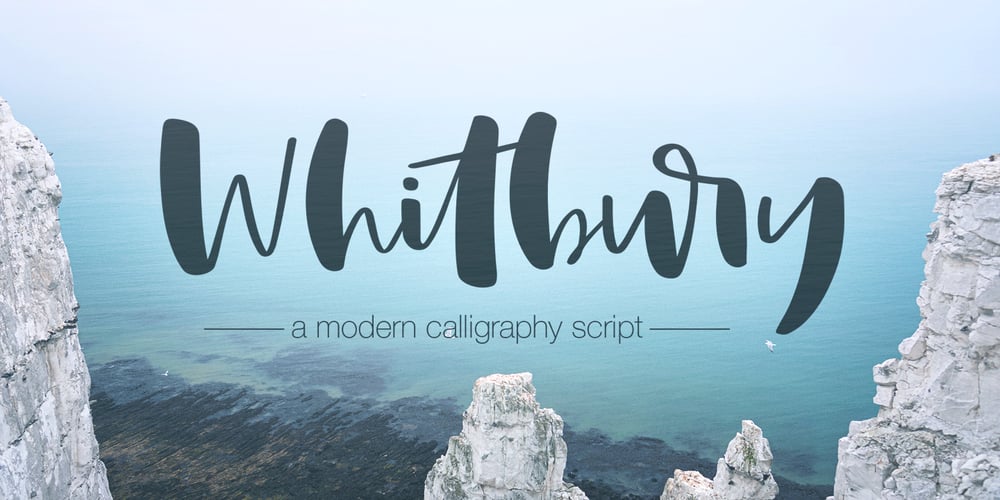
Whitbury Font Family was designed by Rachel White and published by Rachel White Art. Whitbury contains 1 styles and family package options. Whitbury is a modern calligraphy script font with thin upstrokes and super heavy downstrokes. It has lots of fun ligatures! It’s fun to use for quotes and headlines, and logos and branding projects. It’s casual, playful, and full of eye grabbing attitude.